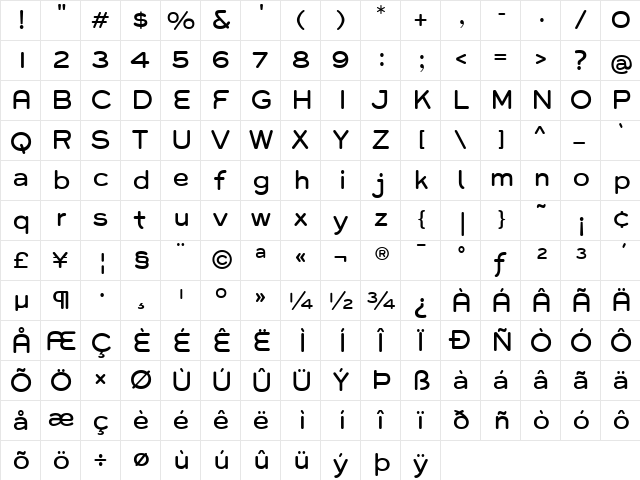
Grover Regular
Design Context for Grover Typeface
Grover offers clean, dependable letterforms without strong stylistic allegiance, making it a practical choice for designers who need flexibility.